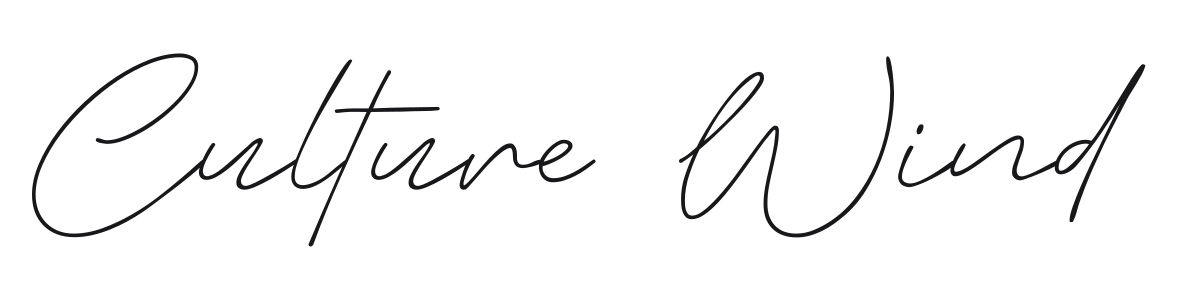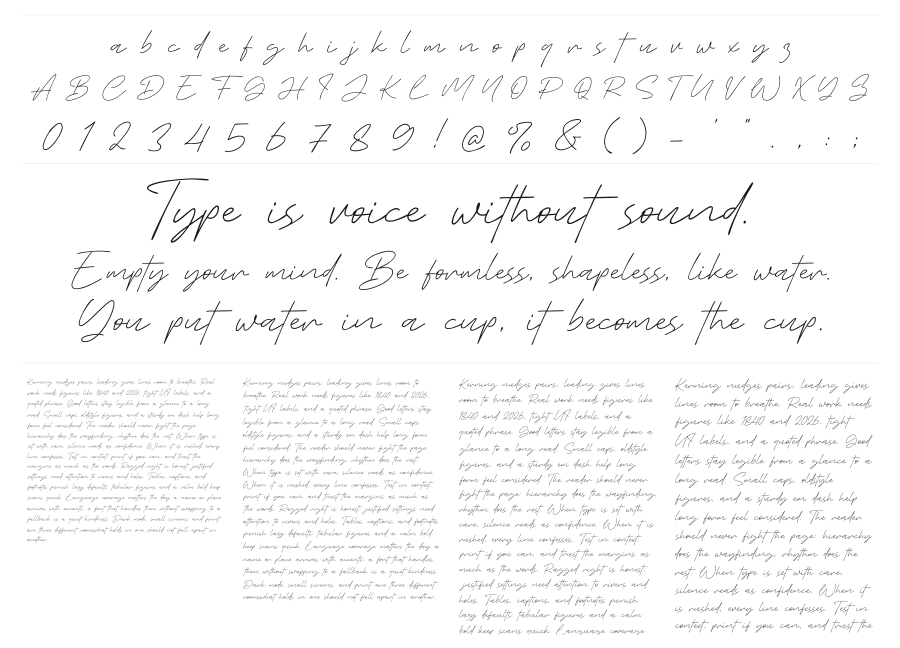
Culture Wind
Culture Wind is a thin flowing script with long sweeping connections and graceful descenders that give it a loose, signature-like quality. The near-monoweight strokes and open spacing keep it light and modern rather than formal. It sits naturally on packaging, logos, and editorial headlines where an effortless handcrafted feel is the point.